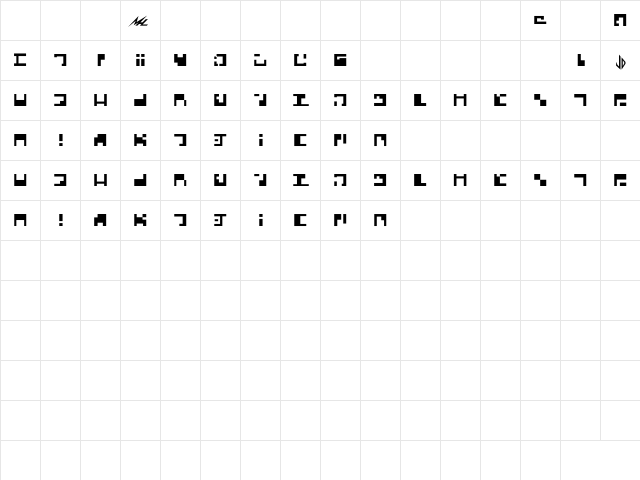
Malcorian Bold
Design Context for Malcorian Typeface
Malcorian is a composed and adaptable typeface that performs quietly and consistently across a wide range of design contexts. Its bold stroke weight gives it real presence on the page.